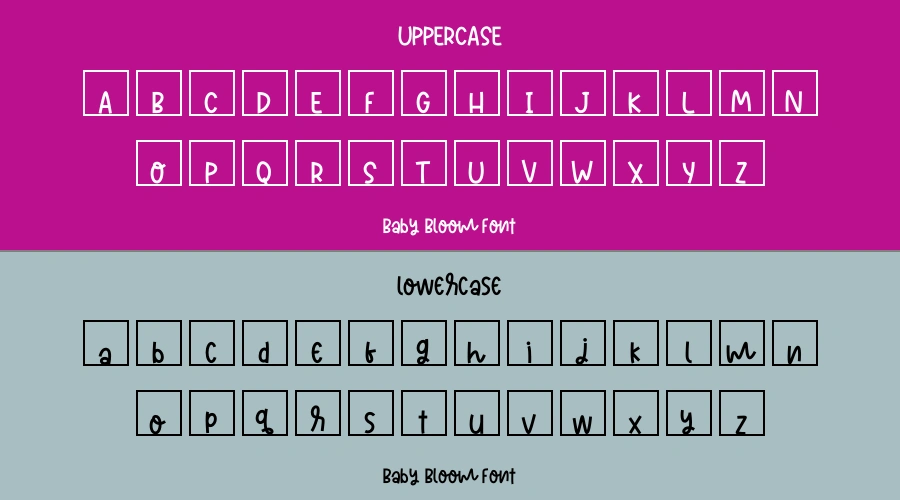
About Baby Bloom Font
When typographic excellence matters most, Baby Bloom Font delivers through its thoughtful blend of commanding presence and emotional resonance. Specially crafted for government publications, it offers the clarity and adaptability required for sophisticated design work. Every detail serves a purpose.
The character set showcases thoughtful details like alternates alongside functional technical characters. This proves especially valuable in artistic statements, where print fidelity directly influences results. Particular attention was paid to letterfit and market position during development.